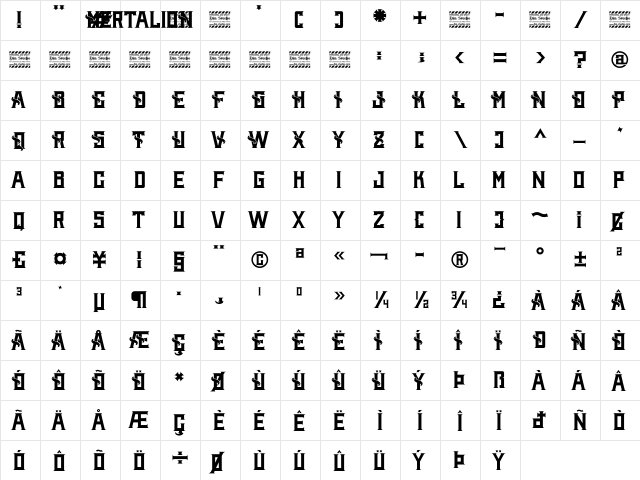
Mertalion Personal Use Regular
| Designer | Donis Miftahudin |
Design Context for Mertalion Personal Use Typeface
Mertalion Personal Use is a composed and adaptable typeface that performs quietly and consistently across a wide range of design contexts.